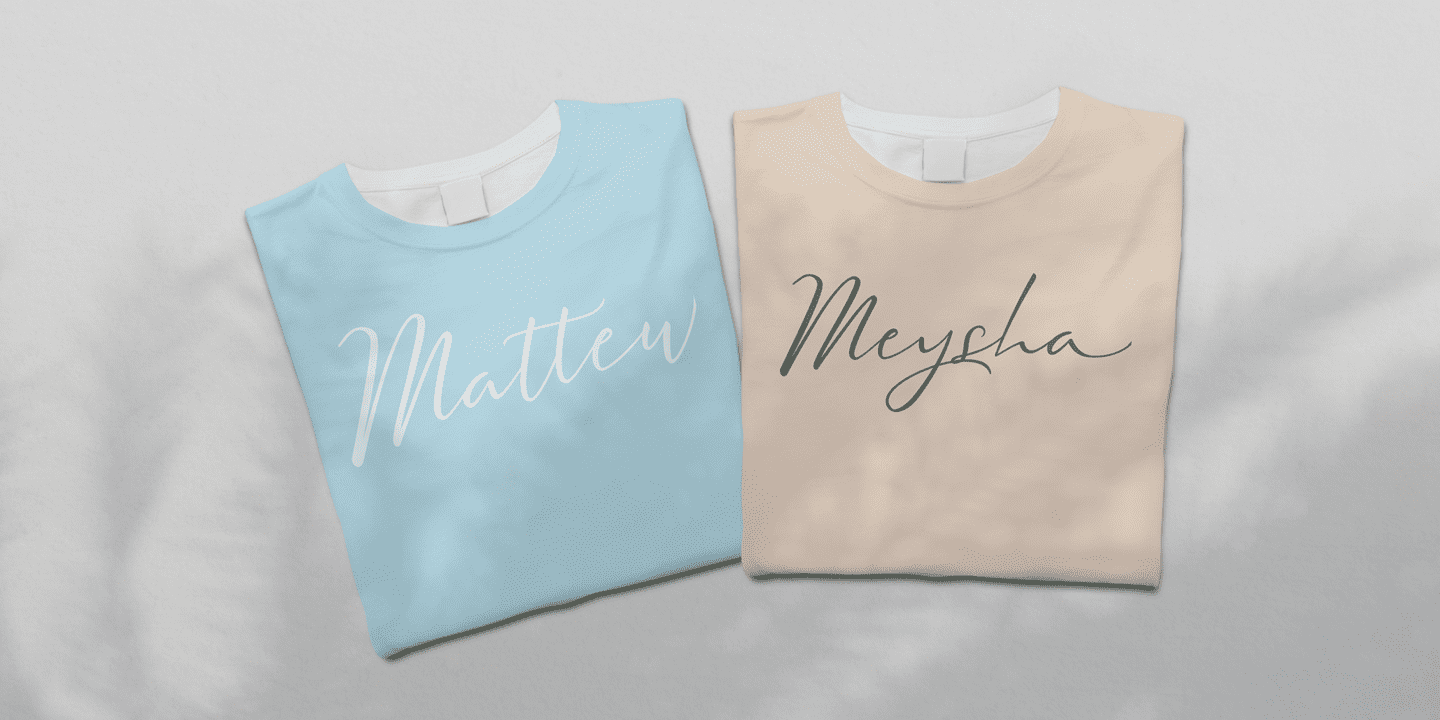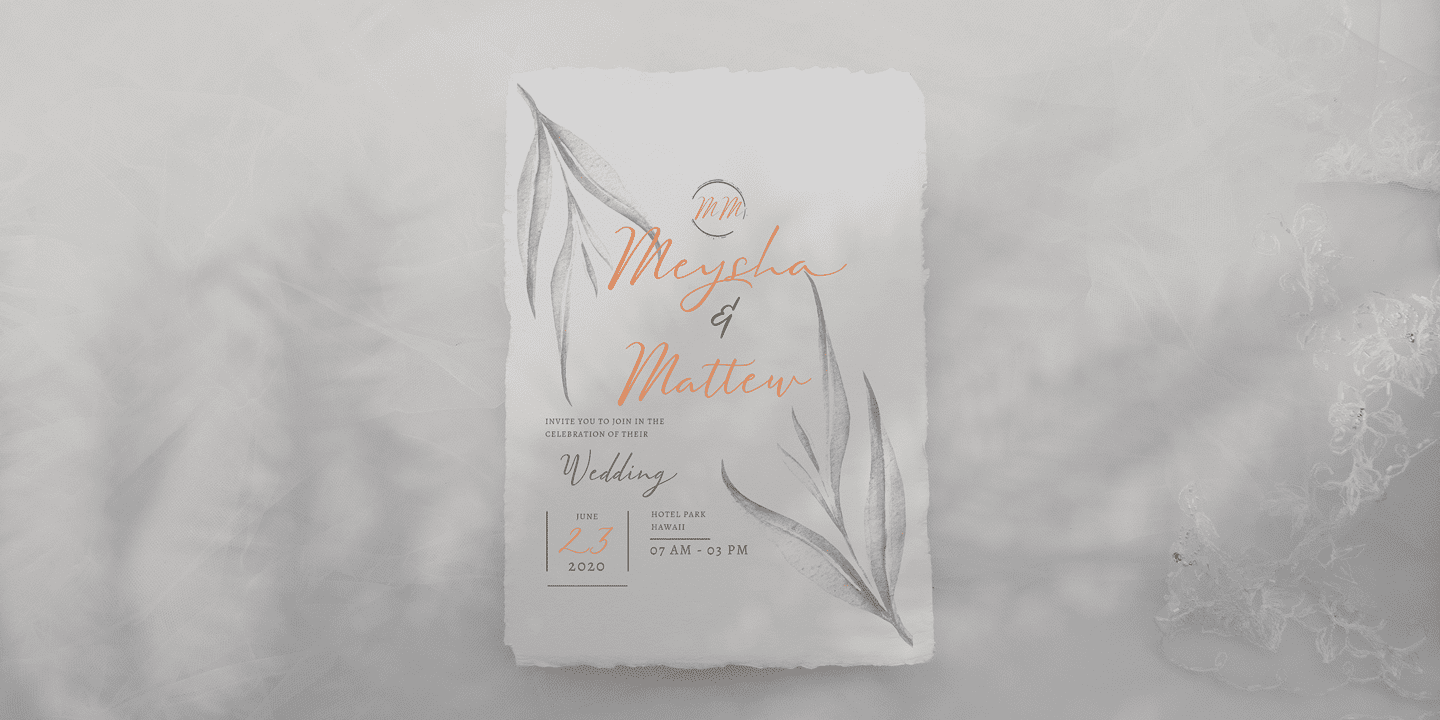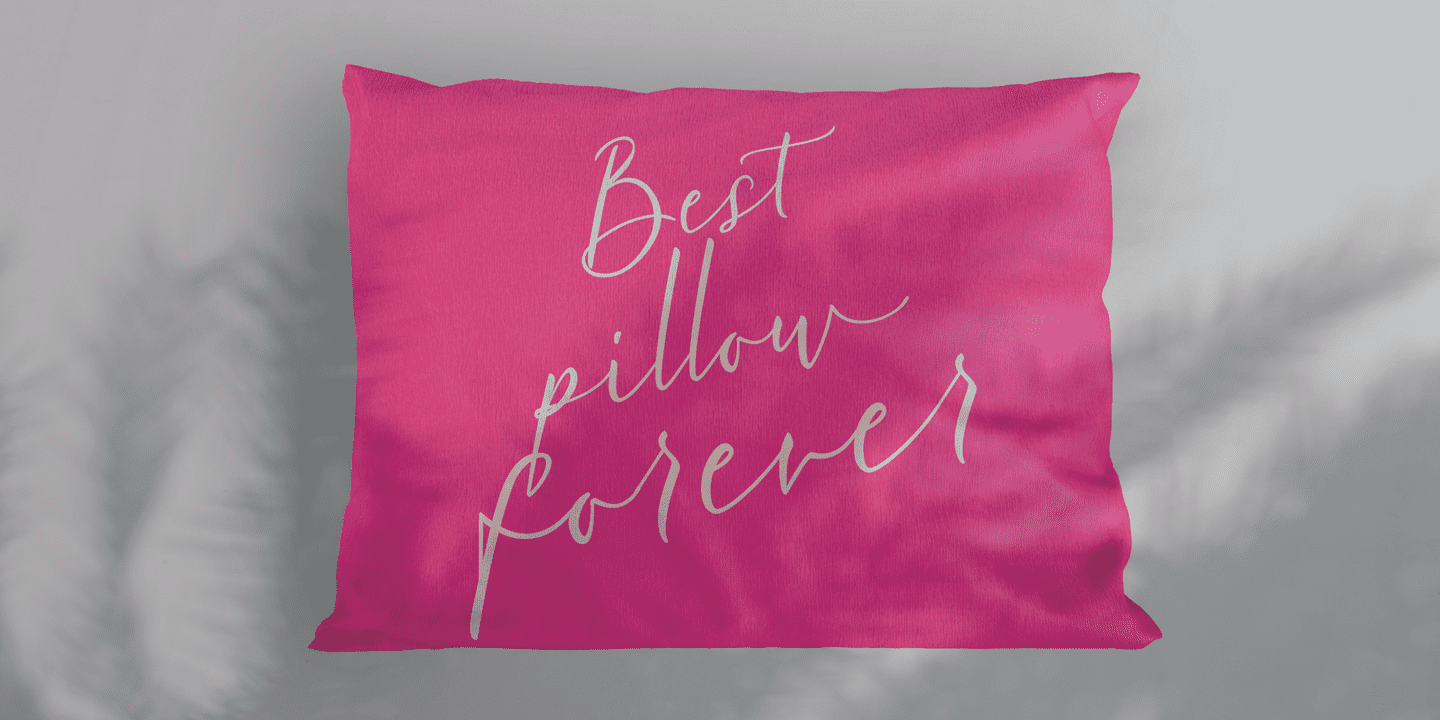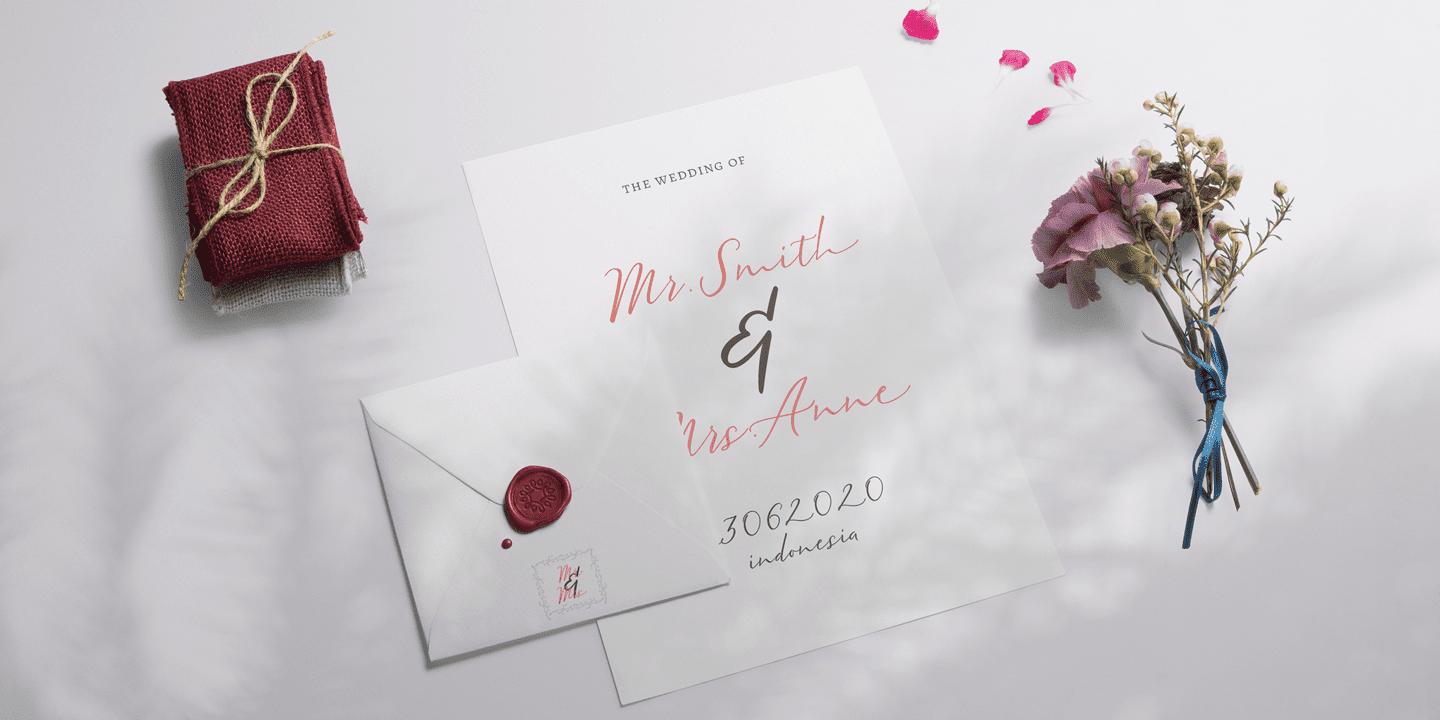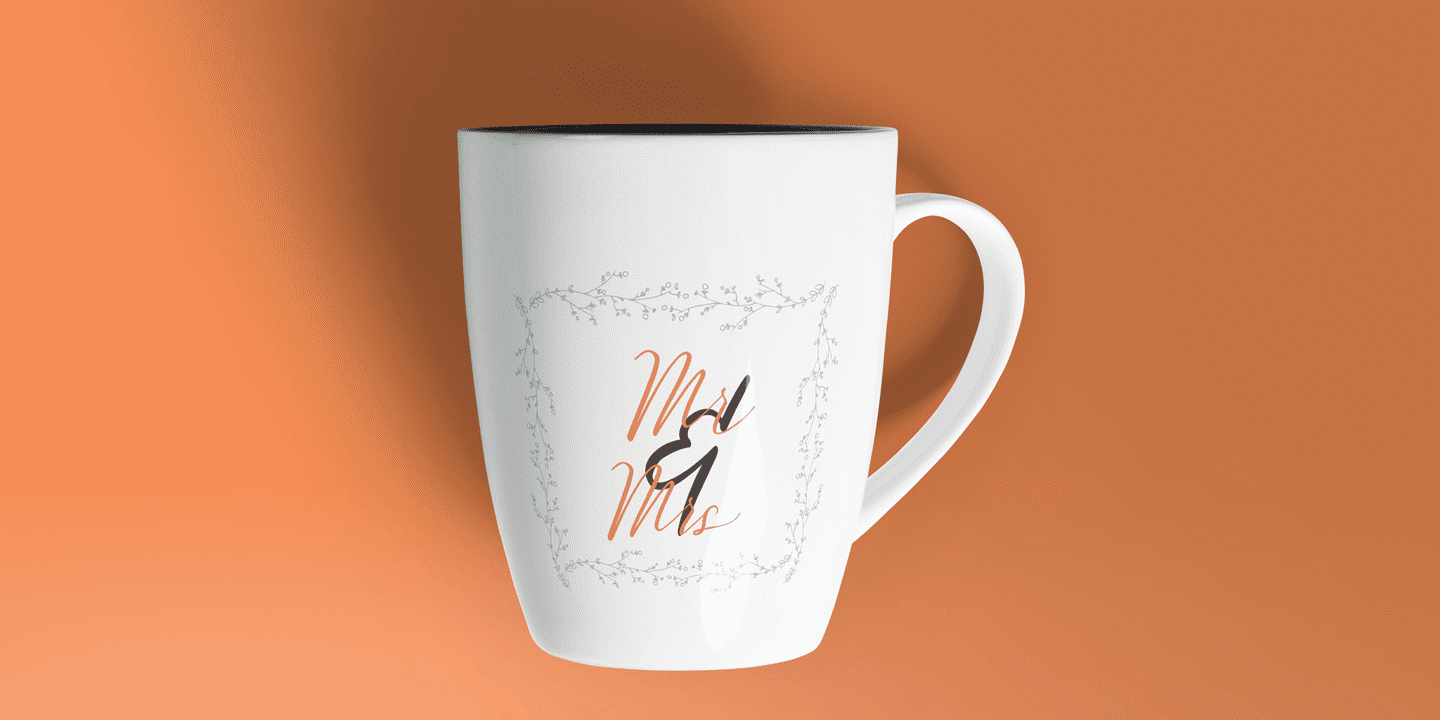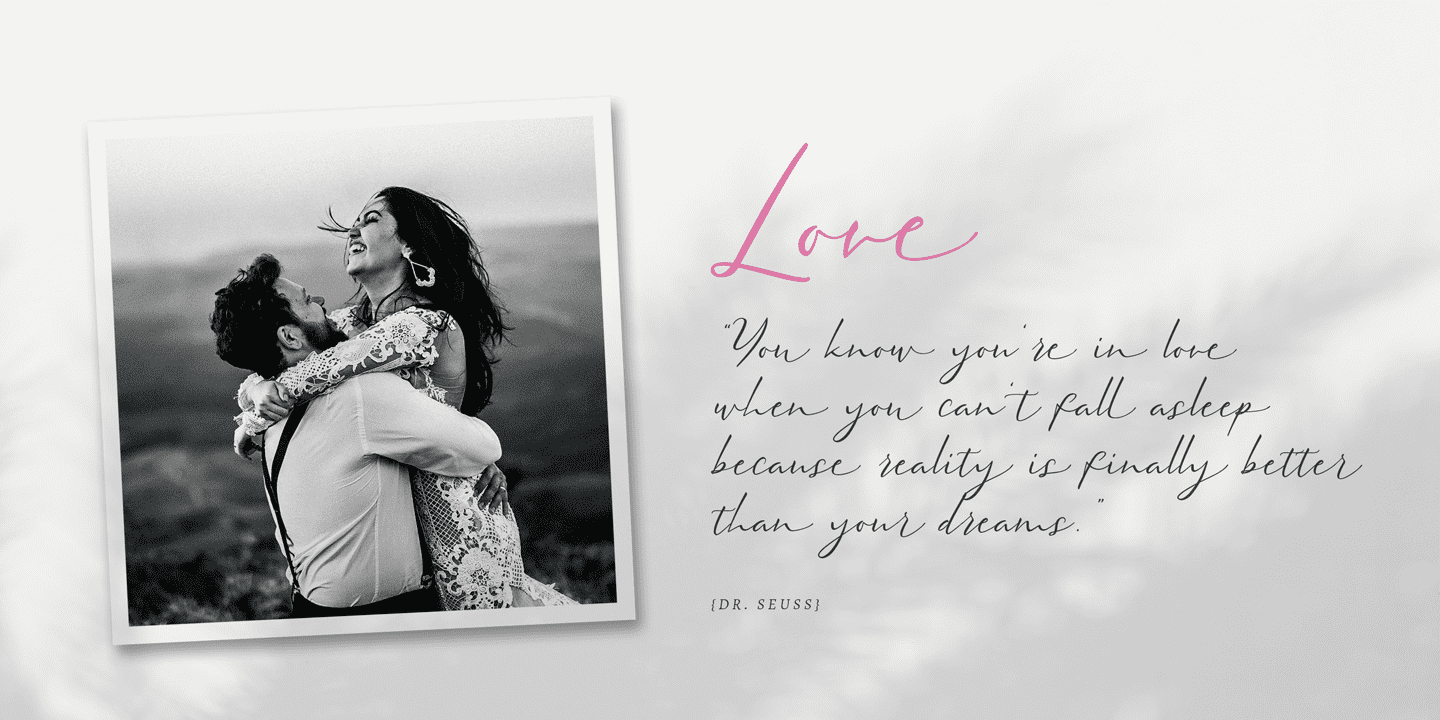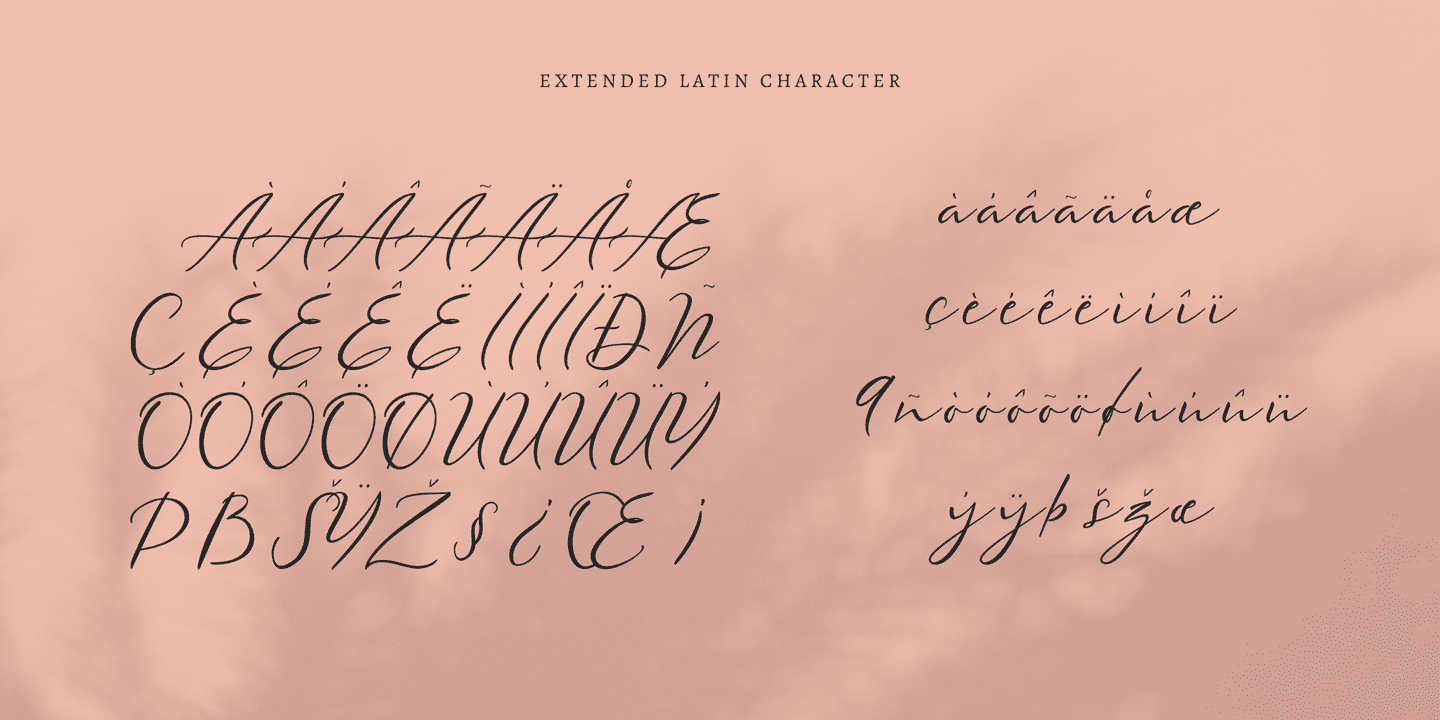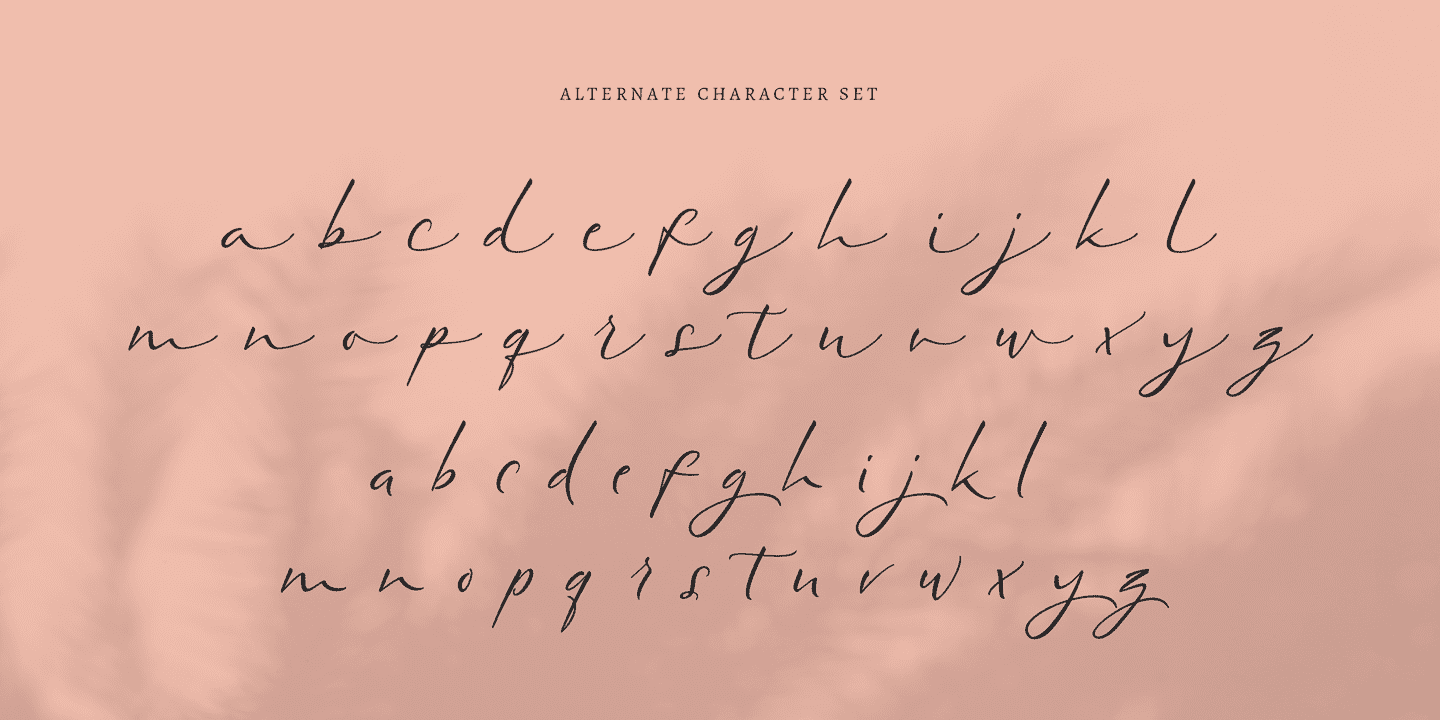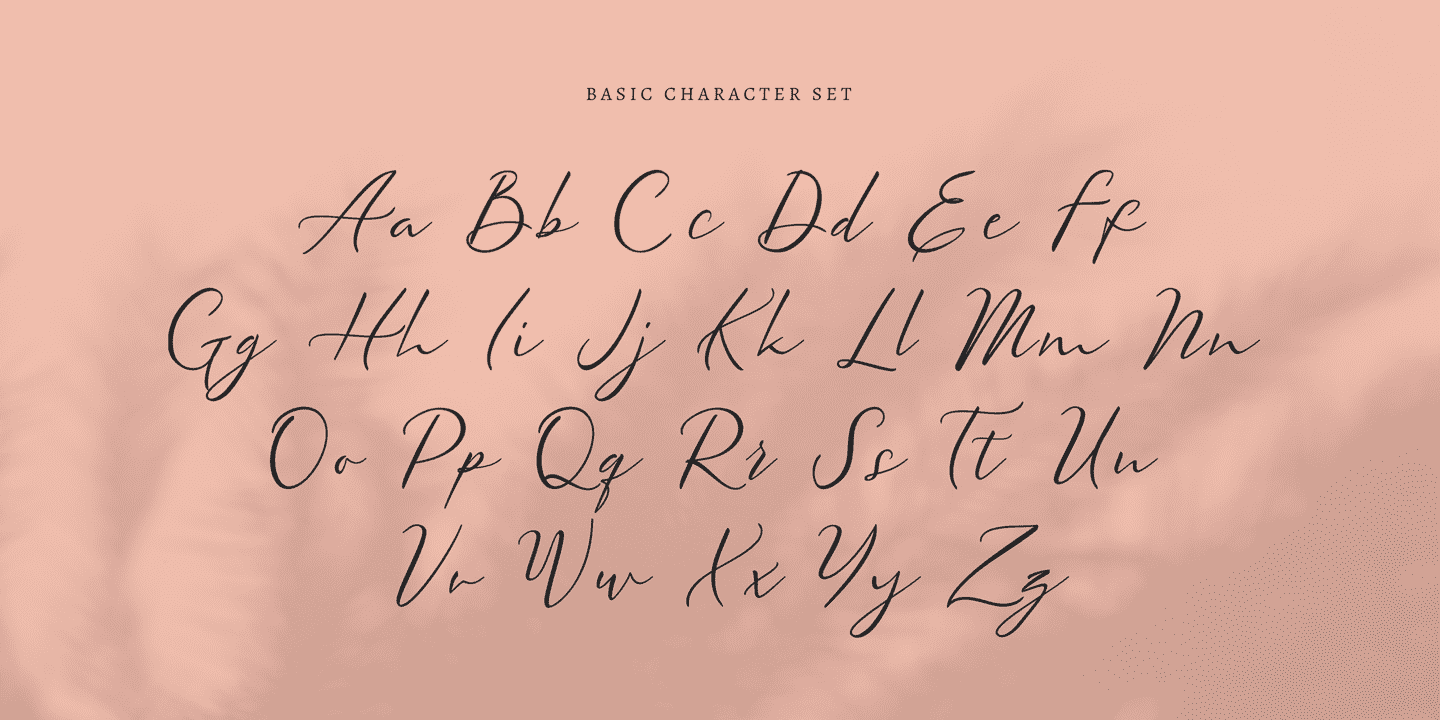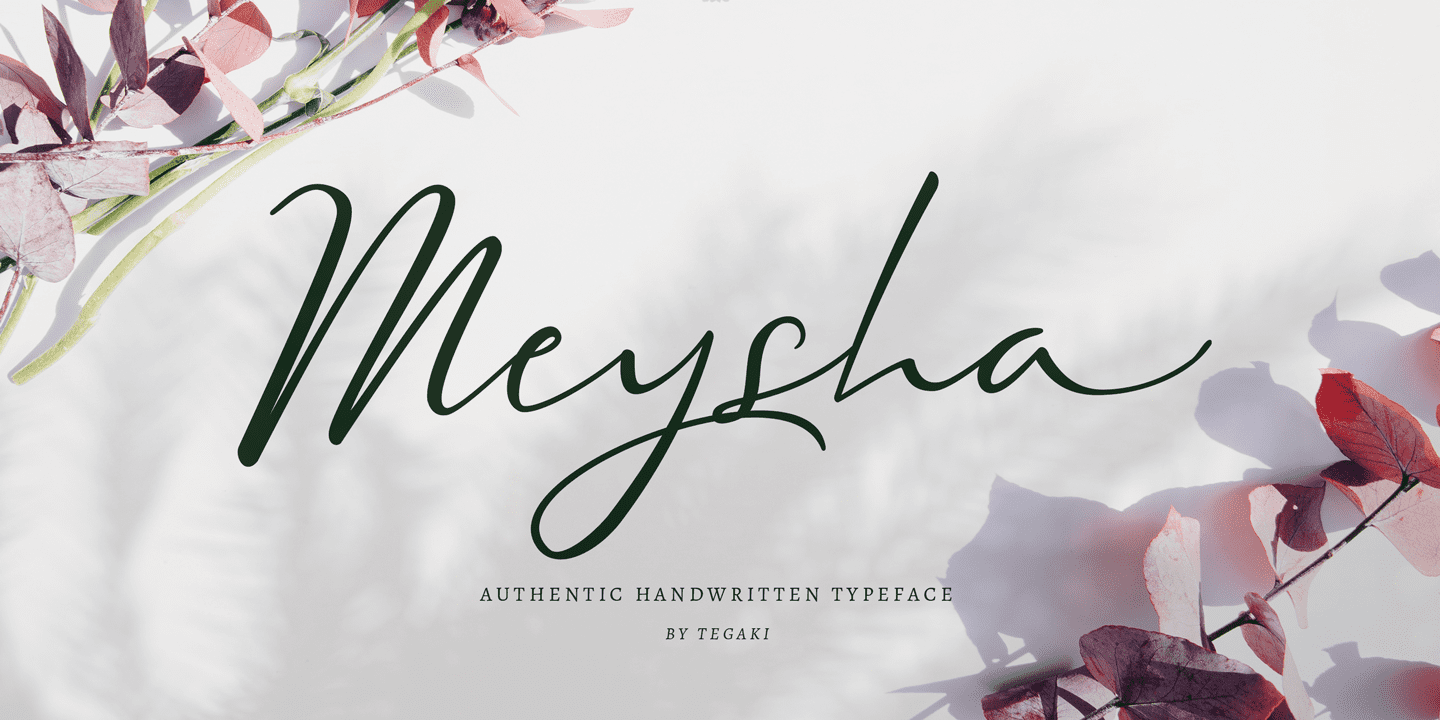
Meysha (1 font)
Meysha comes with 281 glyphs and 52 alternate characters as OpenType features (supported with contextual alternates mode). Meysha also includes 11 extended ligatures, allowing you to make your designs look more exclusive and pro standard.
Meysha works great for logos, display, product branding, wedding invitation cards, stationary, packaging, clothing, flyer, apparel, magazines, brochures, labels, posters, badges, and more.